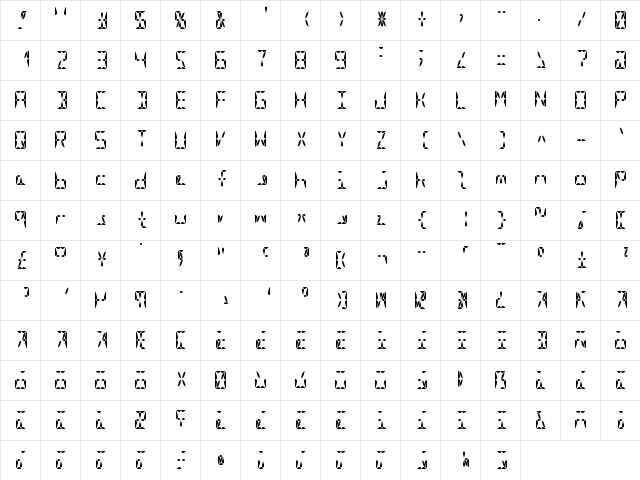
Segment16A Bold
| Designer | Daniel Wikholm |
Design Context for Segment16A Typeface
Segment16A is a composed and adaptable typeface that performs quietly and consistently across a wide range of design contexts. Its bold stroke weight gives it real presence on the page.